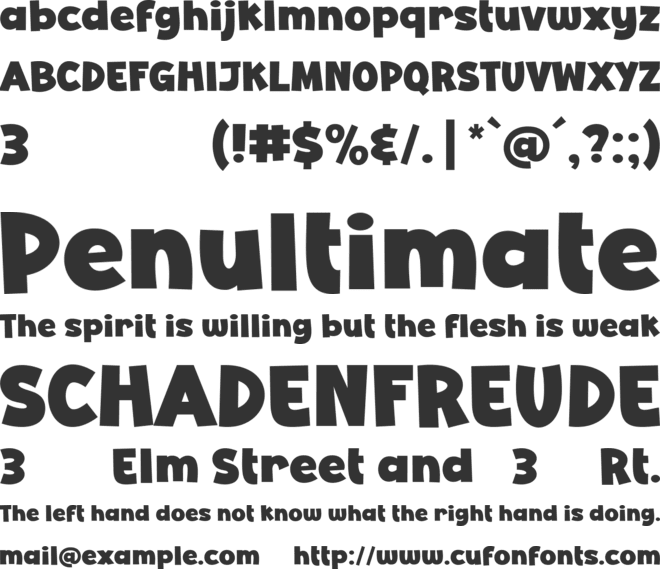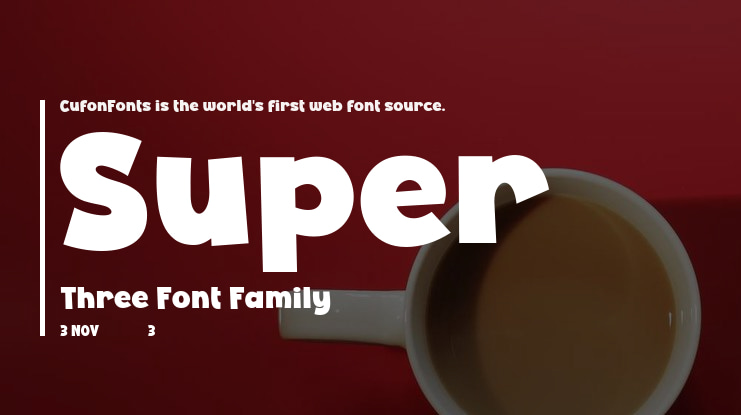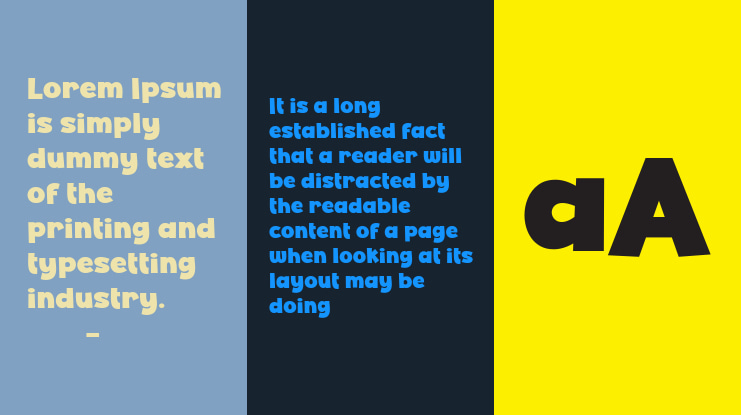
Super Three Font
Super Three is a super fun, bold, and playful font that's perfect for getting noticed. Its chunky, relaxed letters give it a friendly and approachable vibe, making it a great pick for anything kids-related or for any design that just needs a touch of fun.